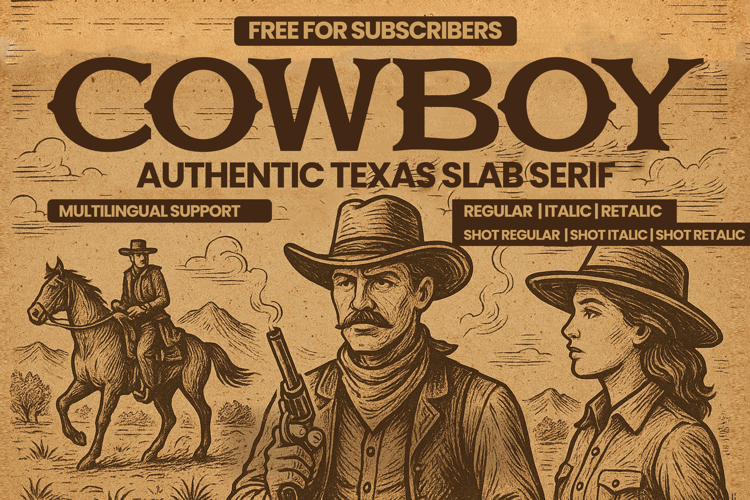
Cowboy Font
5 font family styles
Retalic Style
Shot Italic Style
Shot Regular Style
π¨ Font Name: Cowboy by Minimalist Art Studio
π¨ Font Description: Cowboy is an authentic Texas slab serif with multilingual supportβperfect for Western posters, rugged branding, and vintage packaging.
β Complete Latin set + multilingual diacritics
β Alternates, stylistic sets & ligatures
β Numbers, small caps, and extended punctuation
β Bonus italics and family styles